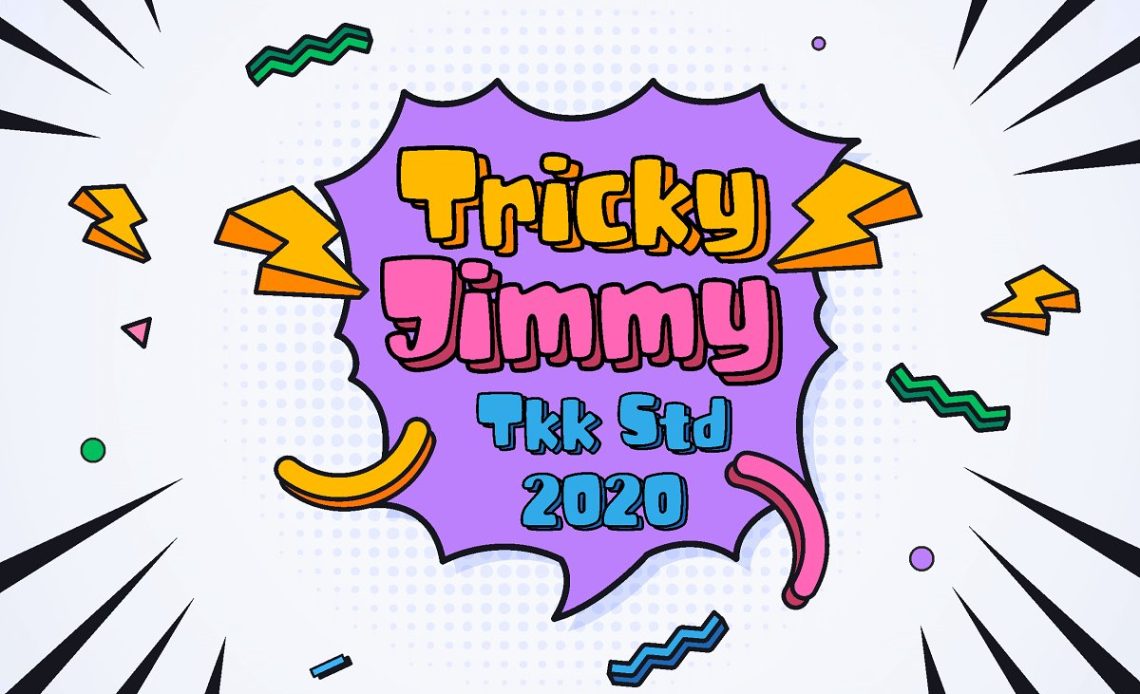
Introducing Tricky Jimmy - Comic Font, the perfect font to add a touch of joy and happiness to your designs! Created by the talented Anggi Krisna, this sans serif font boasts a simple yet fun shape that will make every word come alive with excitement.
Tricky Jimmy is not your average font - it's a versatile tool that can be used in a variety of creative projects. Whether you're designing for online games, creating eye-catching posters, crafting movie titles, designing fast food menus, or even curating magazine layouts, this font is sure to make a statement.
But that's not all! Tricky Jimmy is also perfect for enhancing your online presence. With its captivating style, it's ideal for creating attention-grabbing YouTube covers and thumbnails, as well as stunning social media page covers. Let your creativity run wild and watch as your designs come to life with this incredible font.